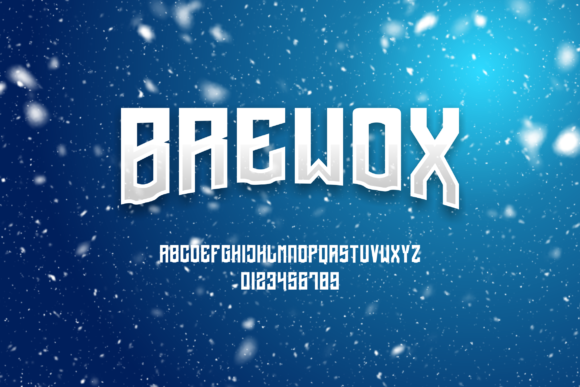
Introducing Brewox Font: The Ultimate Display Font for Bold Designs
In the world of typography, a good font can make all the difference in creating a lasting impression. For designers and crafters looking for a bold and authentic display font, Brewox is an excellent choice. This versatile font is suitable for a wide range of branding projects, from logos and t-shirt printing to sporting designs and more. In this article, we’ll dive into the features and benefits of Brewox Font and explore how it can elevate your design game.
What is Brewox Font?
Brewox Font is a bold and authentic display font designed to make a statement. Its unique and rugged style makes it perfect for creating eye-catching designs that demand attention. The font’s bold and condensed structure ensures that your message is conveyed clearly and effectively, making it ideal for use in a variety of contexts.
Key Features of Brewox Font
- Bold and Authentic Style: Brewox Font boasts a bold and authentic style that is sure to grab attention.
- Versatile and Flexible: The font is suitable for a wide range of branding projects, from logos and t-shirts to sporting designs and more.
- Easy to Read: Despite its bold style, Brewox Font is easy to read, even in smaller sizes.
- High-Quality Design: The font is designed with high-quality craftsmanship, ensuring a professional finish.
Use Cases for Brewox Font
Brewox Font is an incredibly versatile font that can be used in a variety of contexts. Here are some examples of how you can use Brewox Font to elevate your designs:
- Logo Design: Create a bold and memorable logo for your brand with Brewox Font.
- T-Shirt Printing: Design eye-catching t-shirts with Brewox Font that’s sure to turn heads.
- Sporting Design: Use Brewox Font to create bold and dynamic designs for sports teams, events, and more.
- Branding and Advertising: Use Brewox Font to create attention-grabbing ads and branding materials that demand attention.
Benefits of Using Brewox Font
So why choose Brewox Font for your design projects? Here are just a few benefits of using this versatile font:
- Stand Out from the Crowd: With Brewox Font, you can create designs that stand out from the crowd and grab attention.
- Professional Finish: The font’s high-quality design ensures a professional finish that will elevate your designs.
In conclusion, Brewox Font is an excellent choice for designers and crafters looking for a bold and authentic display font. Its versatility, flexibility, and high-quality design make it perfect for a wide range of branding projects. Whether you’re creating a logo, t-shirt design, or sporting design, Brewox Font is sure to elevate your designs and help you stand out from the crowd. So why wait? Download Brewox Font today and start creating bold and memorable designs that demand attention.